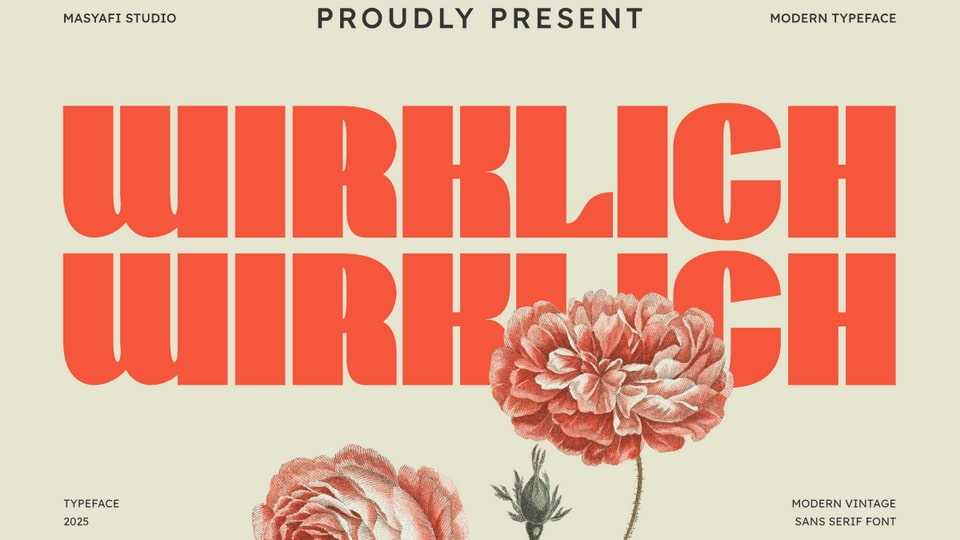
Download Wirklich font, a grotesk sans serif typeface with a vintage style. font inspired by vintage minimalist style typography. This font is very suitable for branding, logos, marketing, social media, quotes, business.